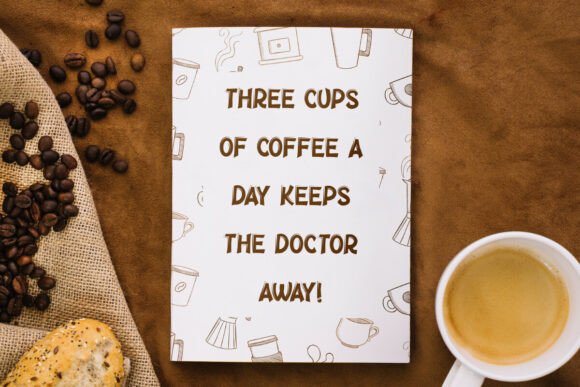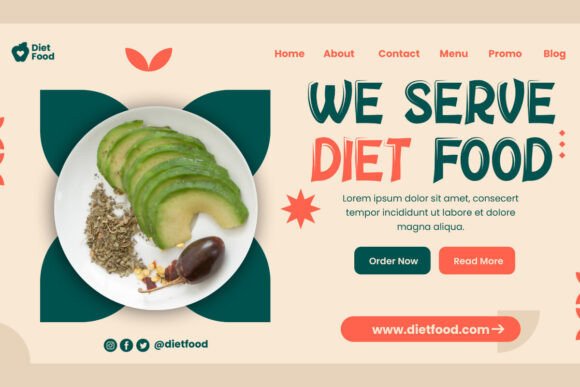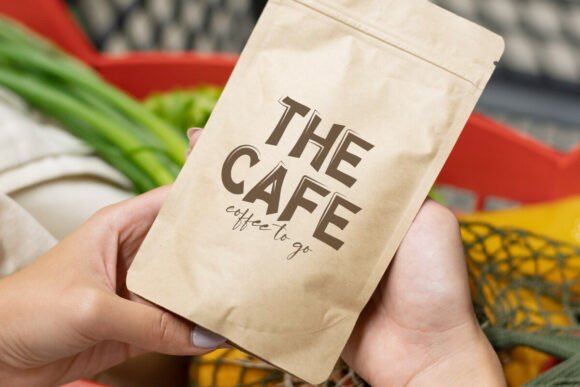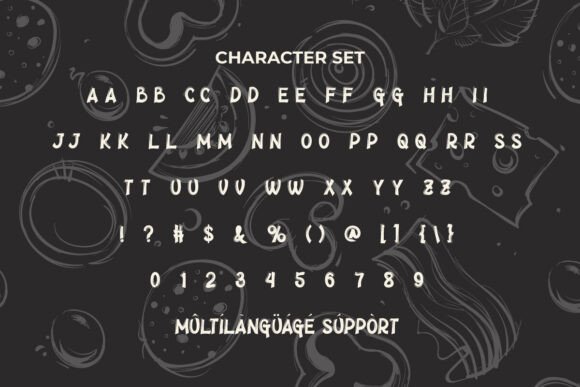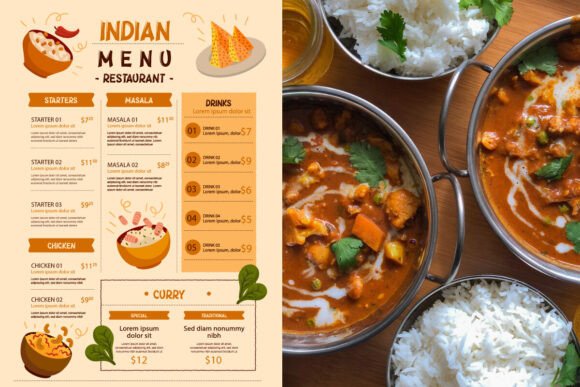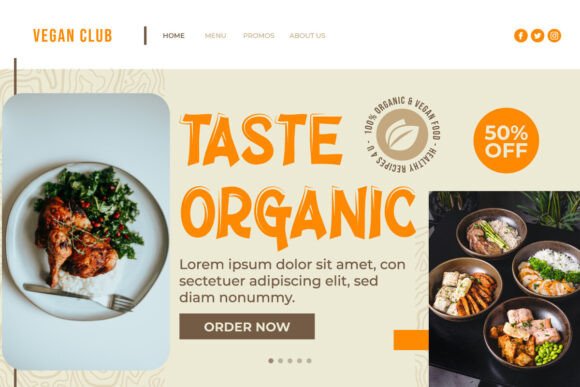
The Perfect Blend of Creativity and Flavor
As a designer, have you ever been stuck in a creative rut, searching for that perfect font to elevate your next project? You know the feeling when you finally stumble upon that one font that makes everything click – it’s like discovering a secret recipe that adds an extra kick to your design.
Enter the Ayam Geprek Font, a delightful and playful typeface that’s sure to bring a smile to your face. This charming font features a unique sketch style that adds a touch of whimsy to any design. Whether you’re working on a mobile app, billboard, or product label, the Ayam Geprek Font is the perfect ingredient to add some flavor to your project.
With its versatility and charm, the Ayam Geprek Font is a valuable addition to any designer’s toolkit. Its subtle scribble effect gives your design a one-of-a-kind feel that’s sure to stand out in a crowded market.
Ayam Geprek Font Key Features
- Font Family: Ayam Geprek Font is a sans-serif font family designed specifically for Indonesian cuisine.
- Size: The font family includes multiple weights, ranging from Thin (100) to Black (900), providing versatility for different design needs.
- Unique Characteristics: The font features a unique, hand-drawn feel with subtle nuances in letterforms, giving it a warm and inviting aesthetic.
Ayam Geprek Font Review
Overall, I think the Ayam Geprek font is a visually appealing choice for any design project, especially for those who want to add a touch of Indonesian flair. ✨ Here are some of its strengths:
- Unique letterforms: The font’s letterforms are well-designed and add a touch of playfulness to any text.
- Good legibility: Despite its unconventional design, the font is still easy to read, making it suitable for body text.
- Wide language support: The font includes a wide range of languages, including Latin, Cyrillic, and Arabic scripts.
- ⚠️ Limited font weights: The font only comes in a few weights, which may not be enough for designers who need more flexibility.
- ⚠️ No italics: The font does not include italics, which can be a drawback for designers who need to emphasize certain text.
- ⚠️ Not suitable for headings: The font’s unique design may not be suitable for headings, as it may be too playful or distracting.
Overall, I think the Ayam Geprek font is a great choice for designers who want to add a touch of personality to their projects. While it has some limitations, its unique design and good legibility make it a solid choice for body text and other design elements.
Tips: Use Ayam Geprek font for bold and eye-catching headings, and pair it with a clean sans-serif font for body text.
Tips: Use Ayam Geprek font for creative and artistic typography projects, and experiment with different font sizes and styles to achieve unique effects.
Tips: Use Ayam Geprek font for presentations and documents that require a unique and attention-grabbing touch.
Ayam Geprek font is suitable for:
- Creative typography projects
- Presentations and documents that require a unique touch
Alternatives to Ayam Geprek Font
1. Nunito Font
Nunito Font is a modern sans-serif typeface that offers a clean and elegant look. It is suitable for various design projects, including branding, packaging, and digital interfaces. Nunito Font is a great alternative to Ayam Geprek Font for designers who want a more minimalist and sophisticated look.
Comparison: Nunito Font has a more refined and polished appearance compared to Ayam Geprek Font, which has a more casual and playful feel. While Ayam Geprek Font is ideal for casual and street food-related designs, Nunito Font is better suited for corporate and high-end branding projects.
Q: Is the Ayam Geprek Font suitable for use in digital applications?
Yes, the Ayam Geprek Font is designed for use in digital applications, including websites, mobile apps, and digital signage. The font is optimized for on-screen display and is suitable for use at a range of font sizes.